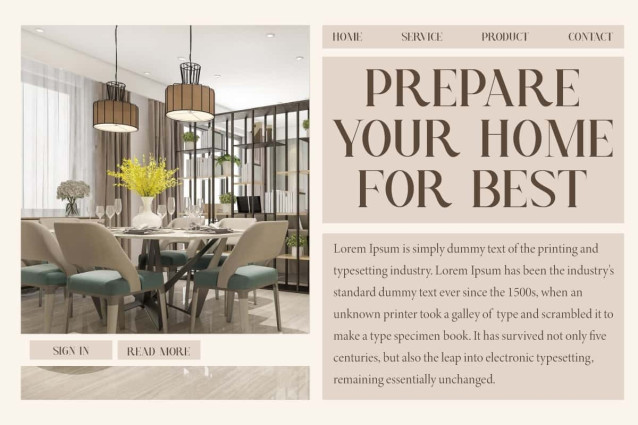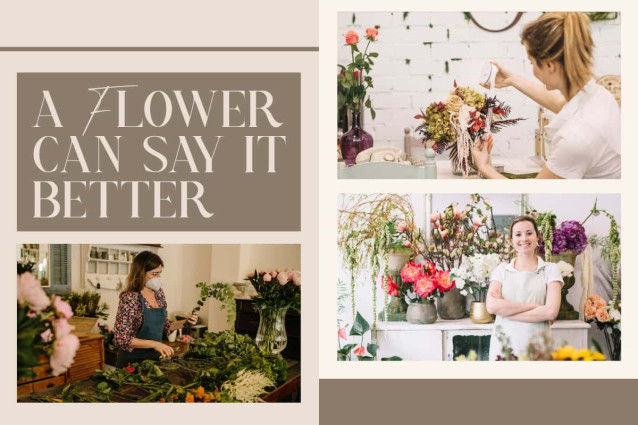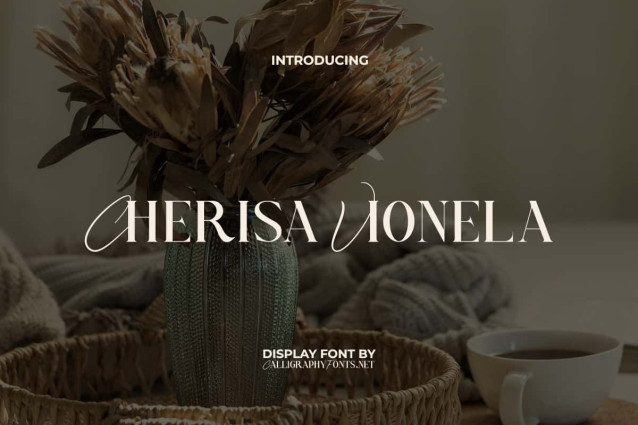
Cherisa Vionela Font
Cherisa Vionela Font is an elegant and refined display font perfect for creating eye-catching visuals. It combines the characteristics of a handwritten script with a serif that is both equally exotic and stylish. This font is ideal for blogs, brand logo, greeting cards, invitation, mockup, packaging design, quotes, soap sleeve, stationery, sticker, template, watermark, website, and much more.
Cherisa Vionela Font brings a different feel than usual, making this typography the most impressive. Its clean and minimalist letters display an elegant design, giving it a sophisticated and classy personality. This font is ideal for beauty product, cosmetician, event organizer, florist, graphic design, handicraft, home furniture, interior design, publisher, real estate, restaurant, wedding, writers, and much more.